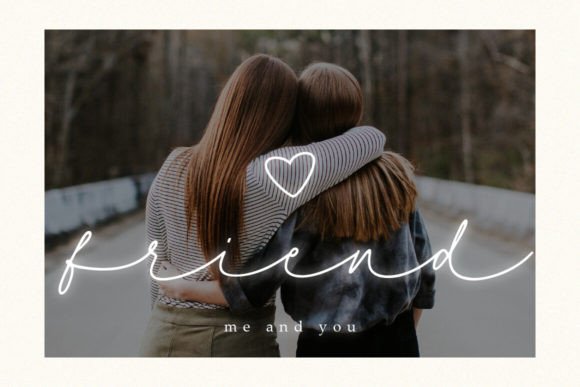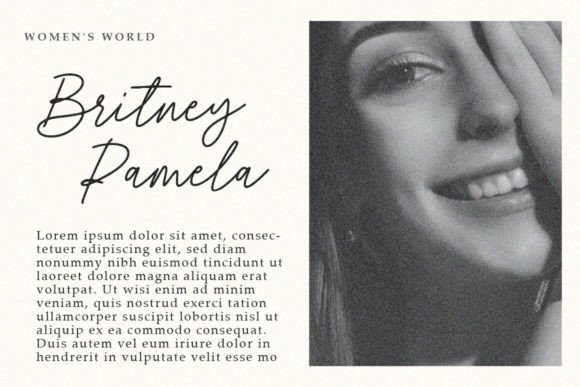
Nadia Heart Font
Nadia Heart is a lovely handwritten script font that emanates elegance. It has enthralling tails at the beginning and conclusion of each stroke and captivating letter alternatives. The font’s distinguishing feature is its heart-shaped connecting tail, which lends a romantic and charming touch. Nadia Heart will fascinate and inspire you with its delicate style.